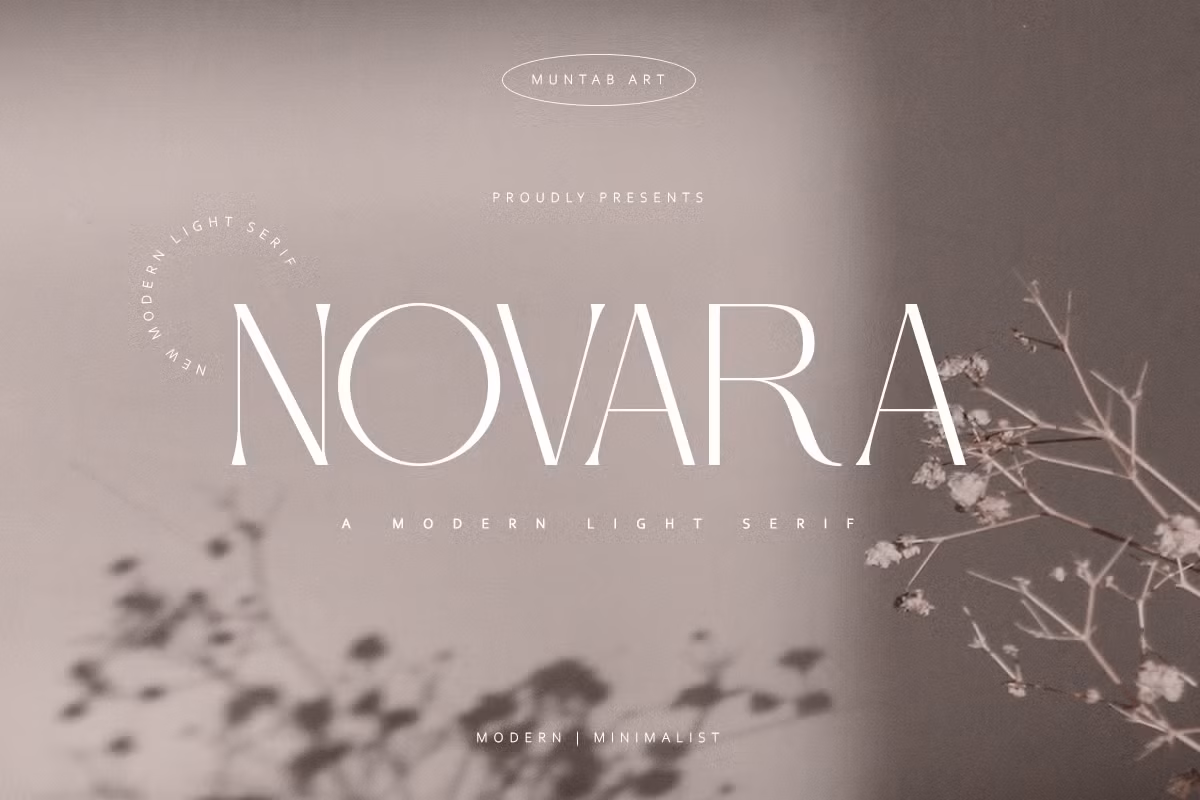
Novara | Modern Serif Font Free Download is a sleek and stylish serif typeface that blends traditional elegance with a contemporary edge. Featuring sharp serifs, clean lines, and high contrast between thick and thin strokes, Novara is perfect for editorial design, branding, luxury packaging, wedding invitations, and high-end fashion projects.
With a refined and professional aesthetic, Novara | Modern Serif Font Free Download offers both sophistication and readability. It includes stylistic alternates and ligatures for added versatility, allowing you to create polished, custom typography that stands out in both print and digital layouts.